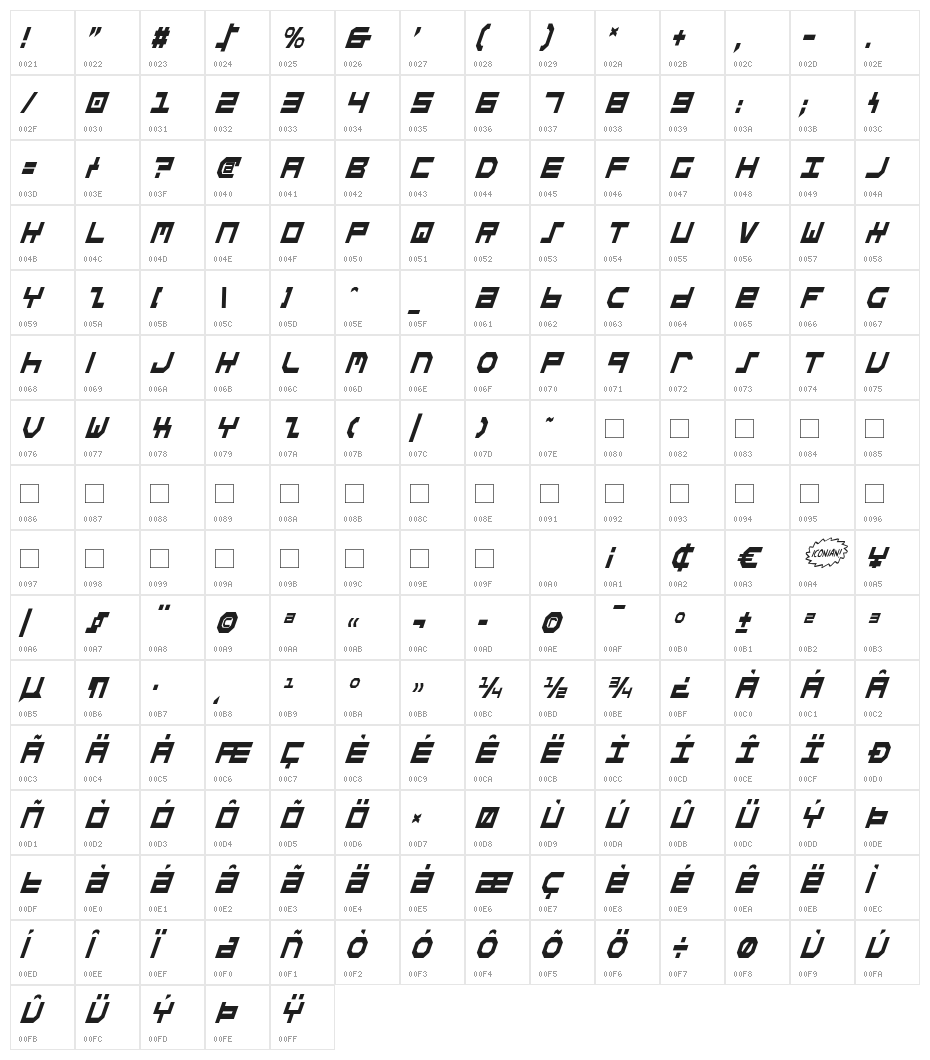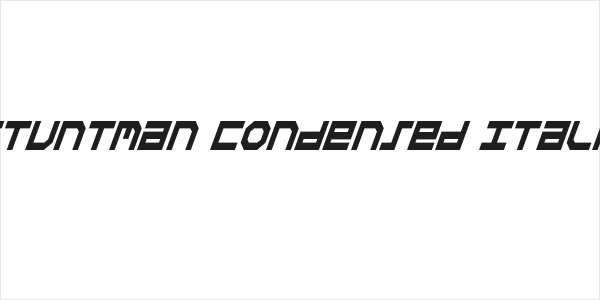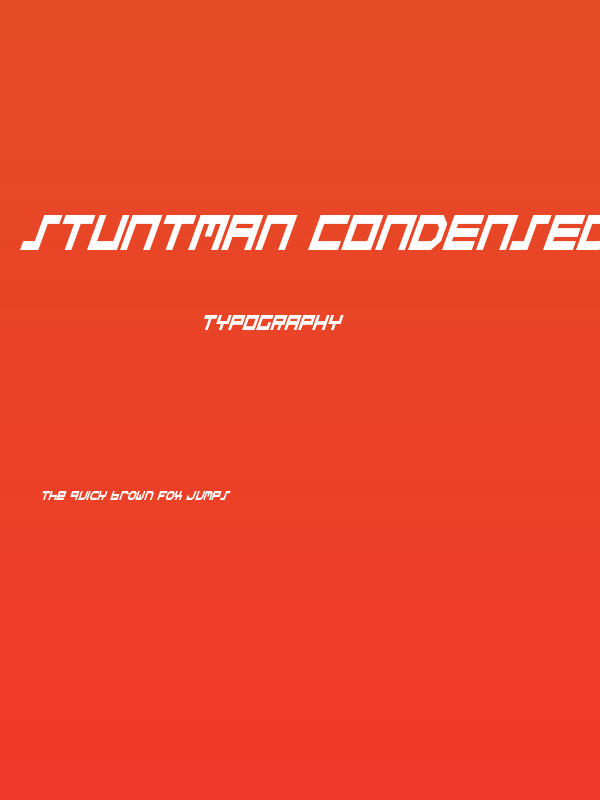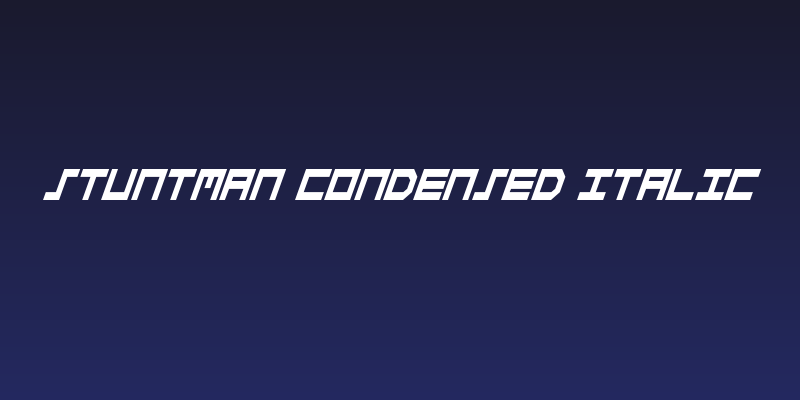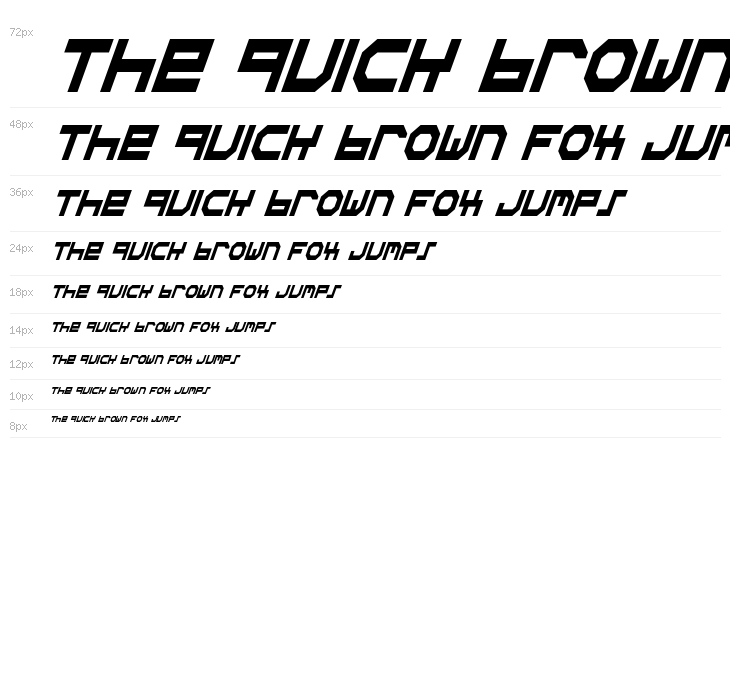
Stuntman Condensed Italic Font
Stuntman Condensed Italic Description
This font features a bold, angular design with a distinctly modern and futuristic aesthetic. The characters are condensed and italicized, giving them a dynamic and energetic appearance. The sharp edges and geometric shapes create a sense of movement and speed, making it ideal for projects that require a strong visual impact. The uppercase and lowercase letters maintain a consistent style, while the numerals and special characters complement the overall design. The font's unique style is suitable for a variety of creative applications.
| Proposed Projects | Ideal for use in action-themed posters, video game titles, sports branding, and futuristic designs. |